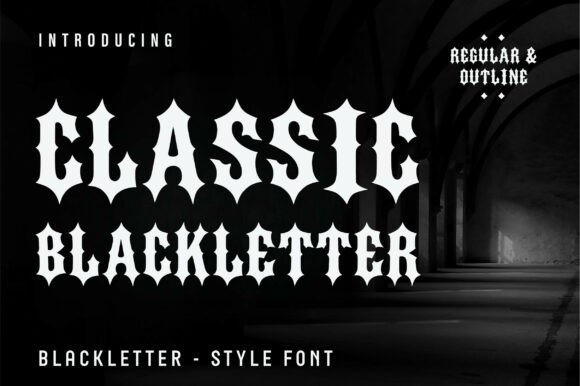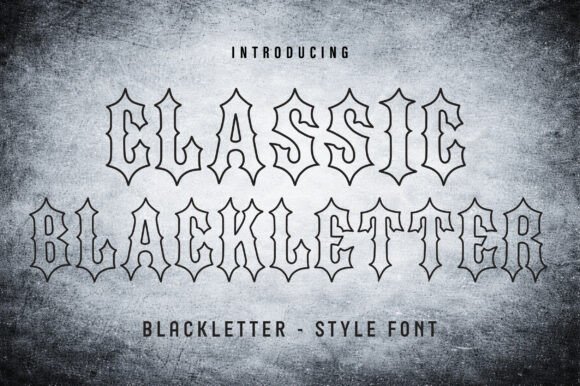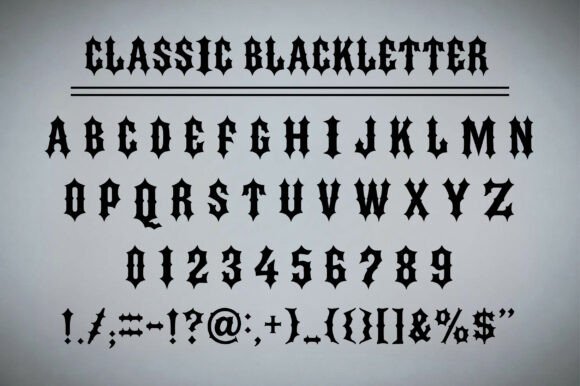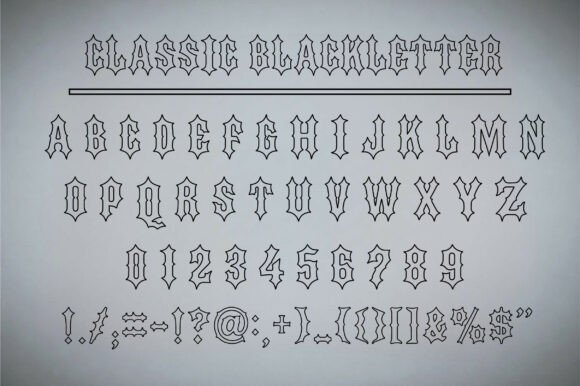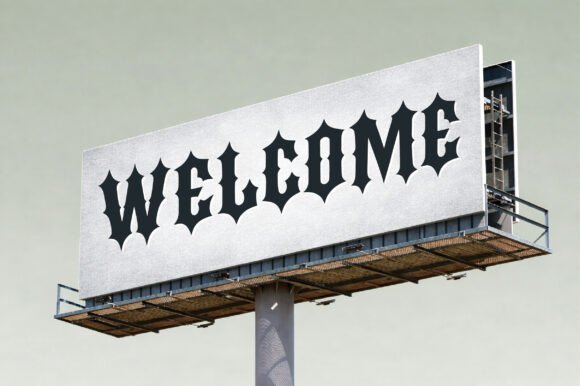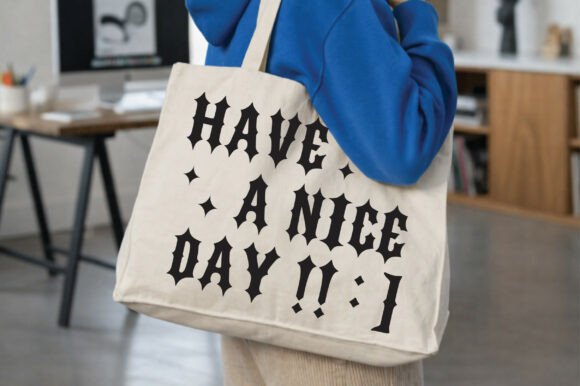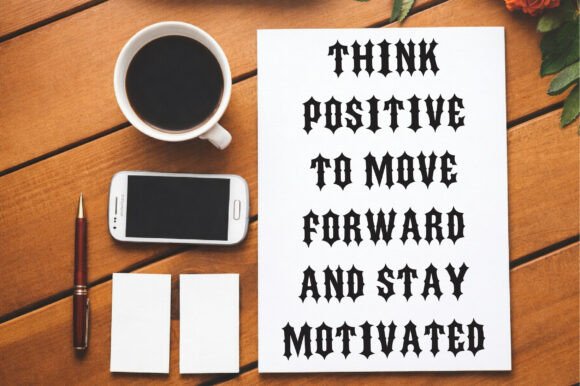
The Power of Medieval Typography
You’ve spent hours brainstorming, sketching, and refining your design, but something’s missing. The perfect font could be the final touch to elevate your project from good to great. That’s where the Classic Blackletter Font comes in – a bold, gothic-style display font that’s been a staple in the design world for centuries.
This dramatic, old-English inspired font is more than just a decorative element; it’s a powerful tool for adding depth and character to your designs. With its sharp edges and strong medieval character, the Classic Blackletter Font is perfect for creating striking headline effects, vintage typography, and dark-themed designs that demand attention.
Classic Blackletter Font Features
- Unique Characteristics: Distinctive letterforms with dramatic flair, featuring long ascenders, short descenders, and intricate flourishes that evoke a sense of history and elegance.
- Historical Inspiration: Based on traditional Blackletter fonts from the Middle Ages, with a focus on recreating the original aesthetic while maintaining readability and versatility.
Designer Review: Classic Blackletter Font
When I first laid eyes on the Classic Blackletter Font, I was immediately struck by its dramatic flair. ✨ The intricate, handwritten feel of this font is reminiscent of ancient illuminated manuscripts, and I couldn’t help but feel a sense of nostalgia for a bygone era. The font’s bold, Gothic-inspired lines are a true showstopper, and I can see it working beautifully in a variety of design contexts – from luxury branding to editorial projects.
However, as I delved deeper into the font, I did start to notice a few limitations. ⚠️ For one, the font’s complexity can make it difficult to read at smaller sizes, and the intricate lines can sometimes get lost in the noise. Additionally, the font’s lack of flexibility in terms of font weights and styles can make it feel a bit restrictive – perfect for a specific design project, perhaps, but less versatile than I’d like.
- ✨ Dramatic, handwritten feel with intricate lines
- ✨ Reminiscent of ancient illuminated manuscripts
- ⚠️ Limited flexibility in terms of font weights and styles
- ⚠️ Can be difficult to read at smaller sizes
Overall, I’d say the Classic Blackletter Font is a true showstopper – but one that requires careful consideration and planning to use effectively. If you’re looking to add a touch of drama and flair to your design projects, this font is definitely worth a closer look. Just be sure to test it out in different contexts to ensure it’s the right fit for your needs.
Practical Application Guide for Classic Blackletter Font
Use the Classic Blackletter font to create dramatic headings or titles that add a touch of elegance to your design.
Use the Classic Blackletter font to add a touch of sophistication to your presentations or documents.
The Classic Blackletter font is commonly used for:
Formal event invitations and announcements
Book titles and chapter headings
Historical or vintage-themed designs
Adding a touch of elegance and sophistication to your designs
How do I pair the Classic Blackletter Font with other fonts?
The Classic Blackletter Font is often used as a headline or title font, paired with a more legible font for body text. A good pairing option is a serif font, such as Garamond or Georgia, which complements the Classic Blackletter Font’s dramatic flair. When pairing fonts, consider the contrast and balance between the two fonts, as well as the overall visual flow and hierarchy of